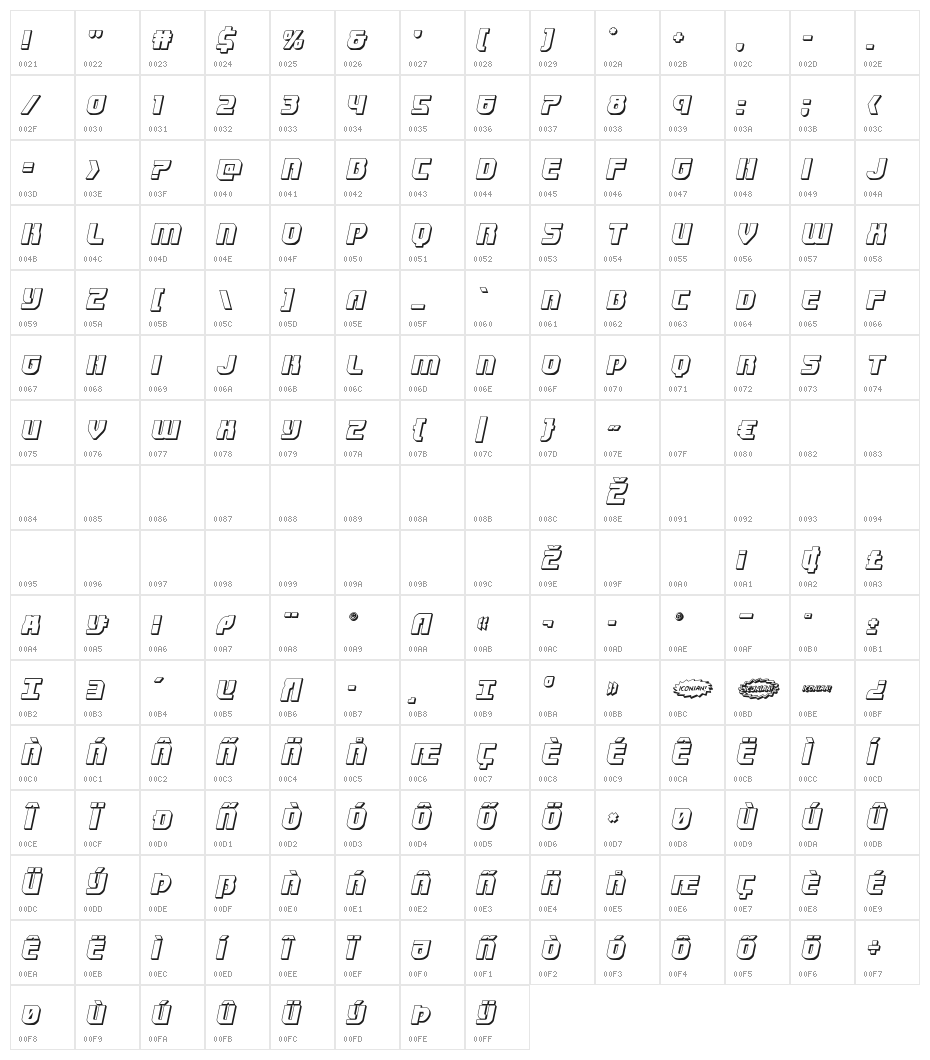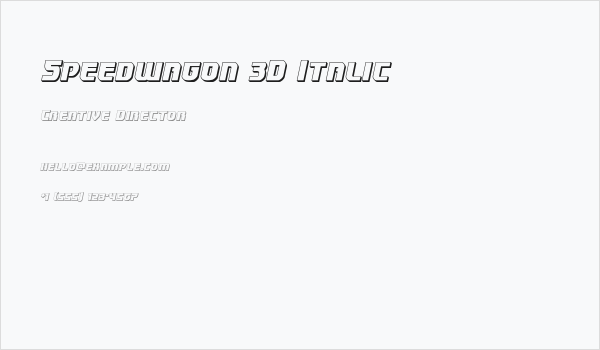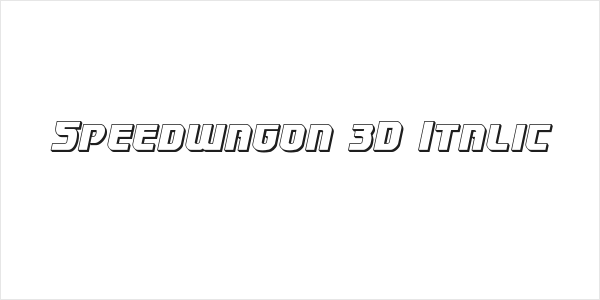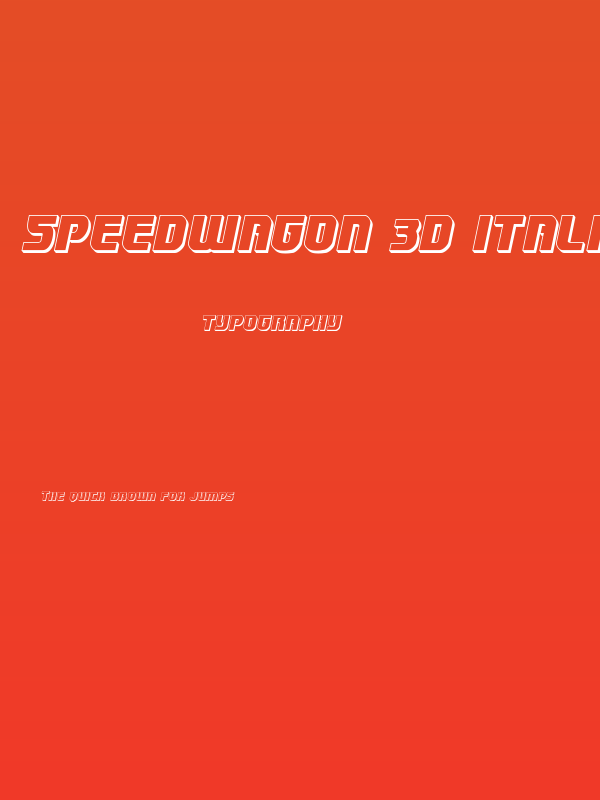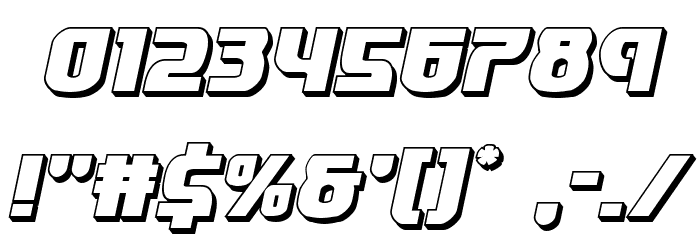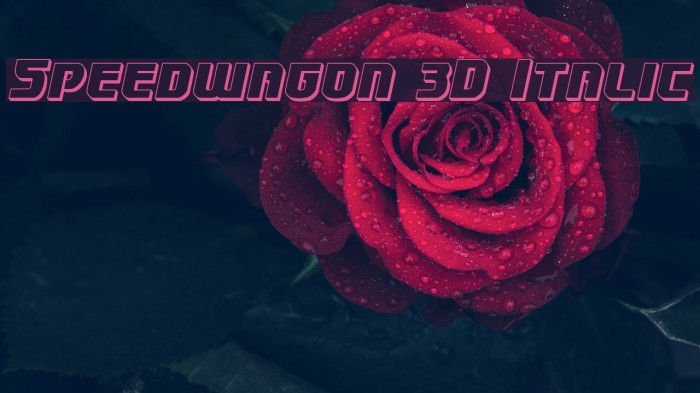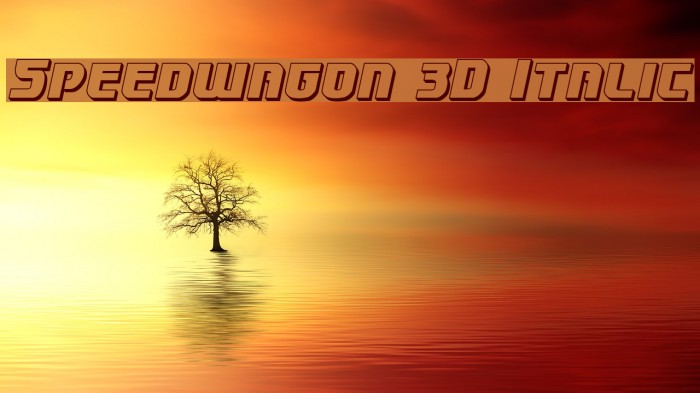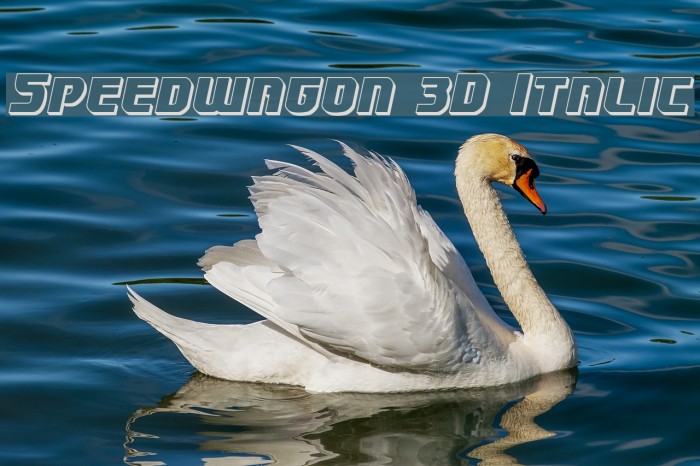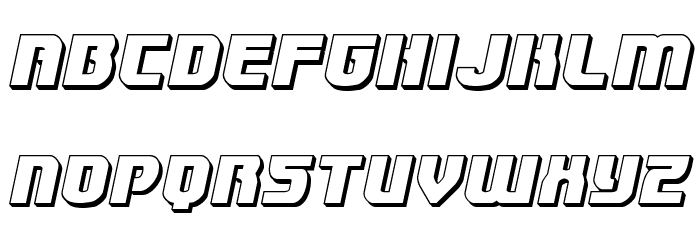
Speedwagon 3D Italic Font
Speedwagon 3D Italic Description
This font features a bold, three-dimensional design with an italic slant, giving it a dynamic and modern appearance. The characters are outlined, creating a shadow effect that enhances the 3D illusion. The uppercase and lowercase letters maintain a consistent style, with sharp angles and clean lines that contribute to its futuristic aesthetic. The numerals and special characters are equally bold and stylized, ensuring uniformity across all glyphs. This font is ideal for projects that require a striking and contemporary look, such as posters, logos, and headlines.